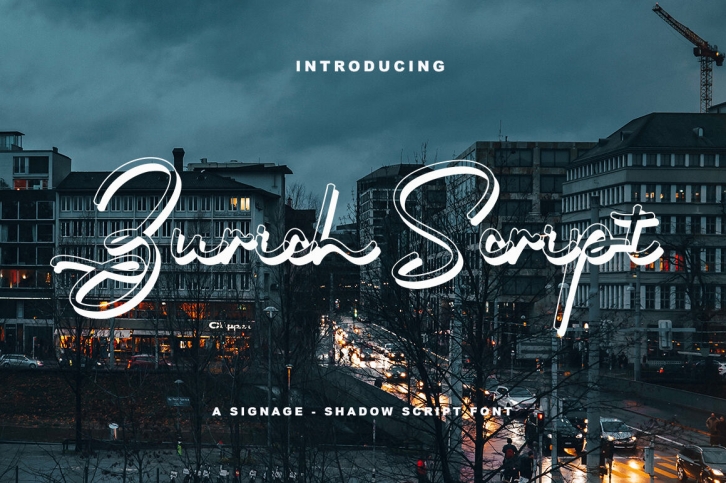
Zurich Script is highly legible Script typeface, get touch of a bold, classic and fun Vintage Script font. such as posters, t-shirt, signage, logos, news, badges etc.